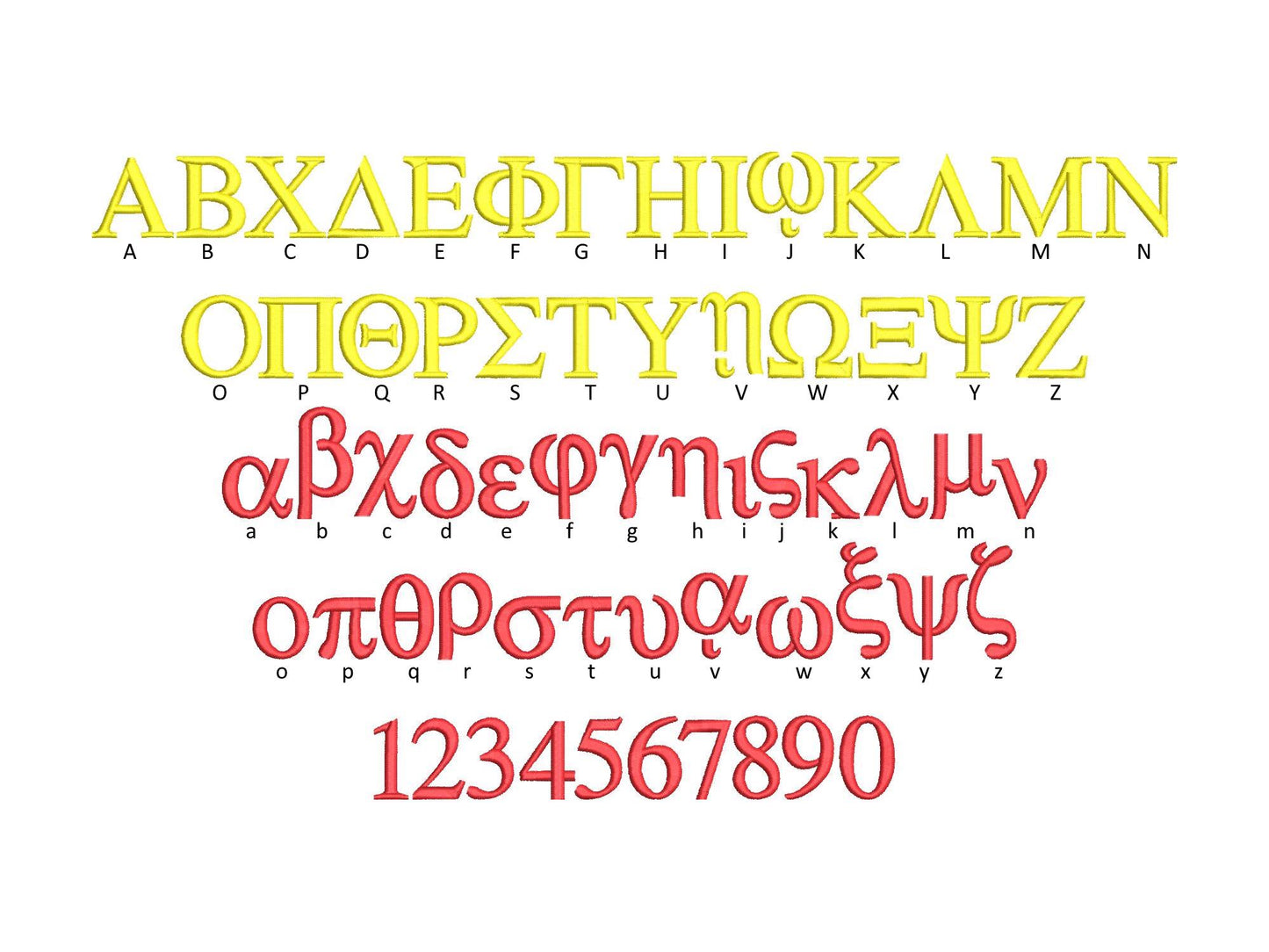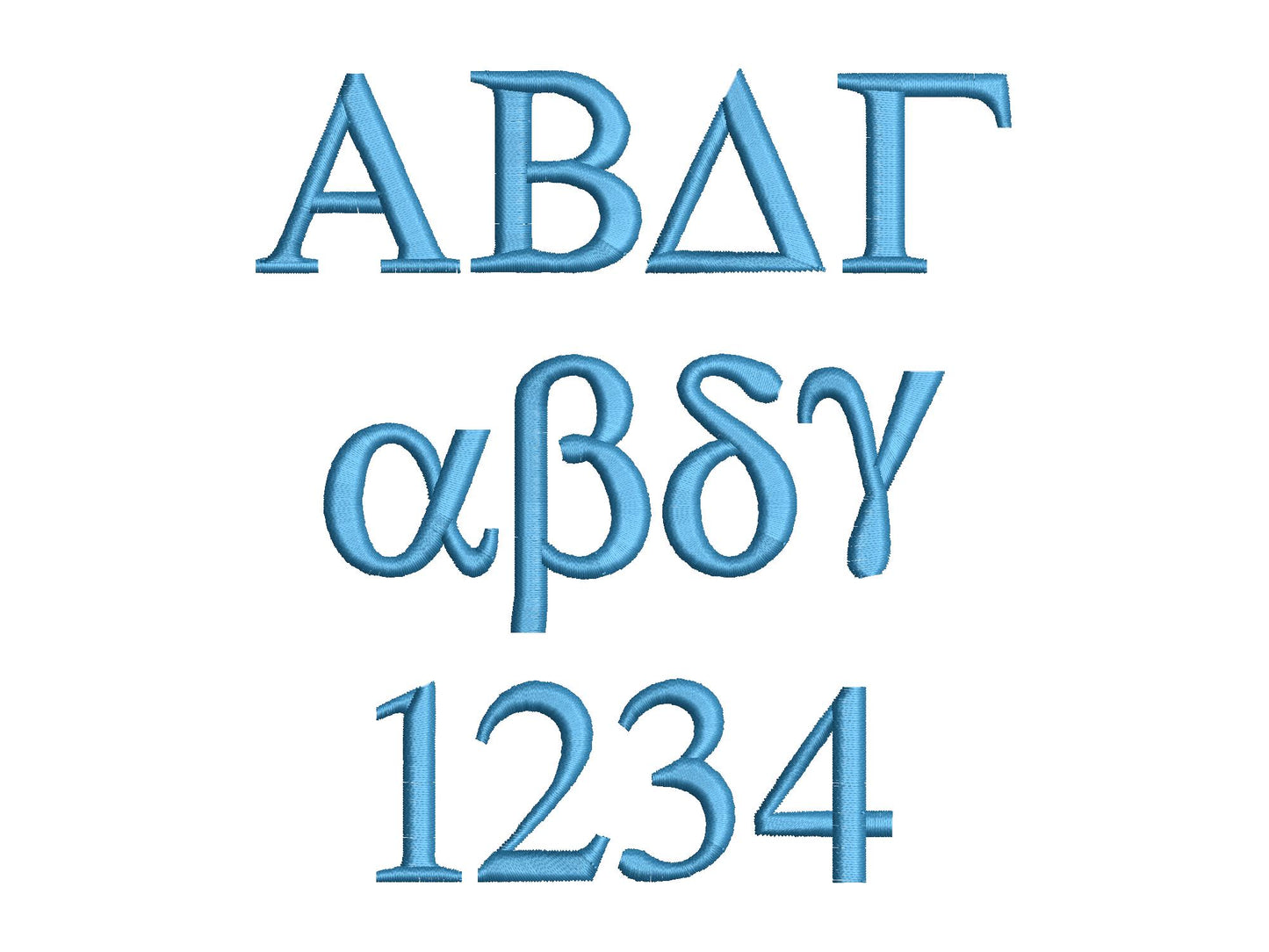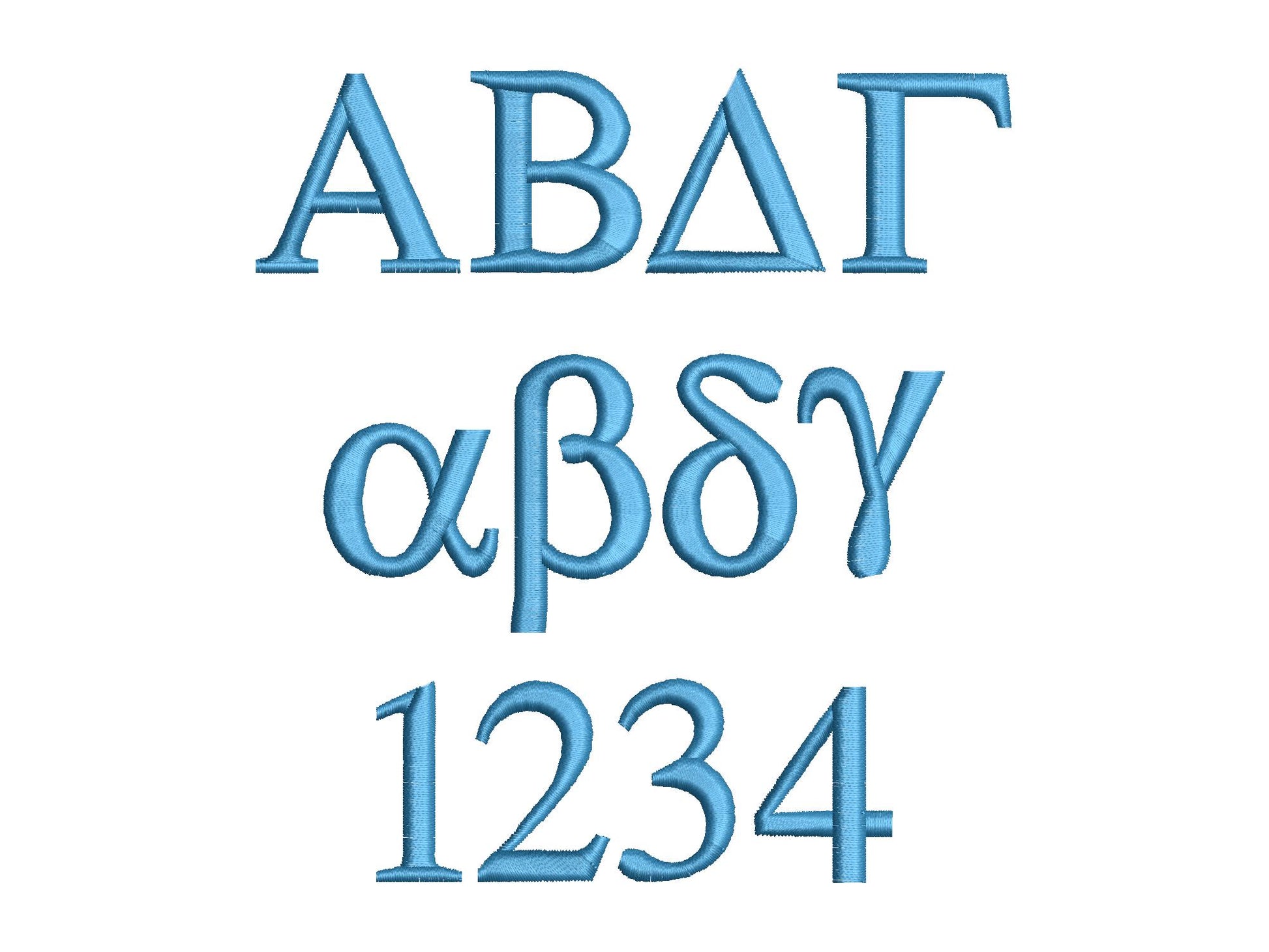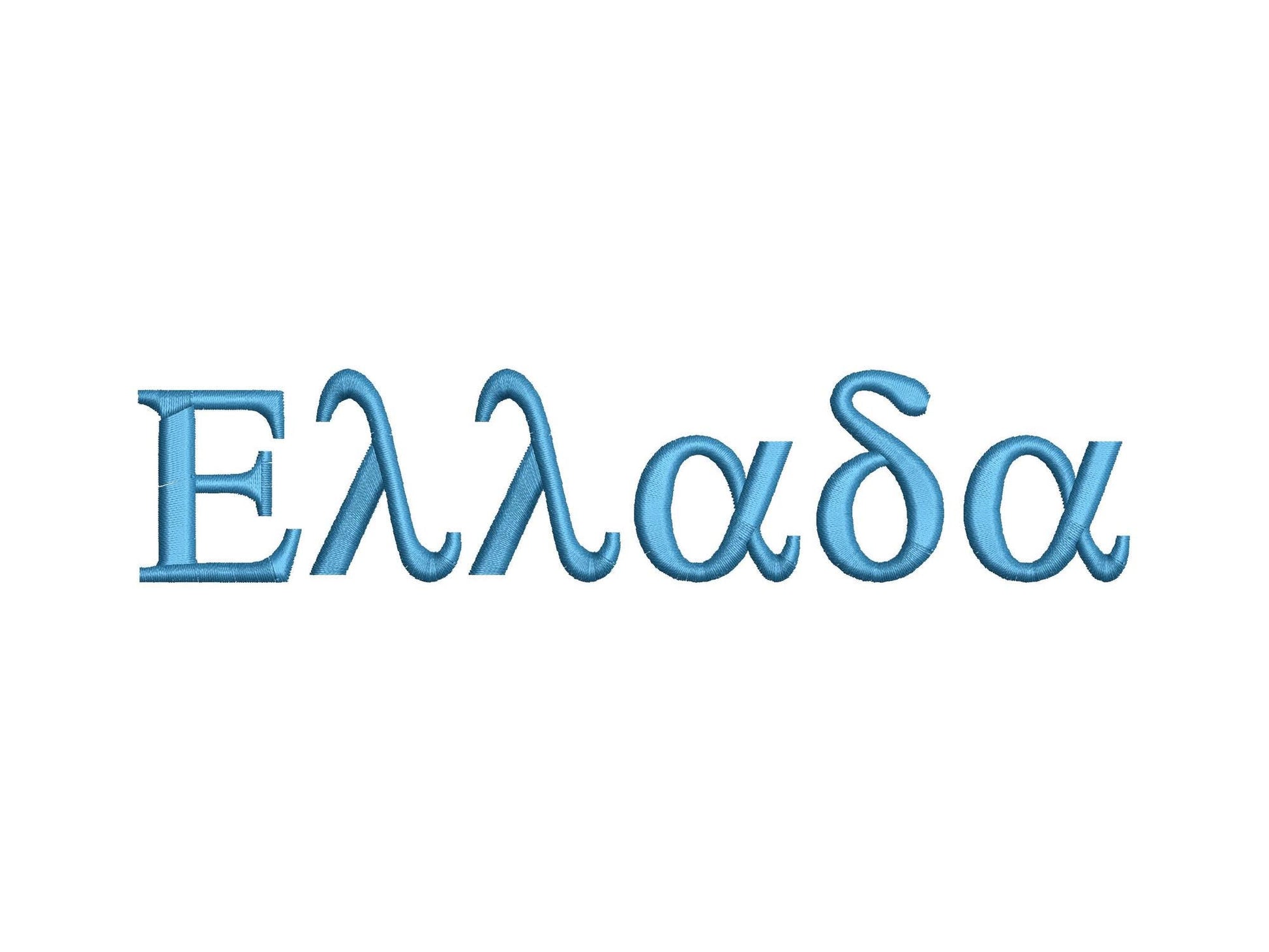
Or click to open the linkA mini satin stitch Greek alphabet for fraternities and sororities. Made for Greek letters on shirts, jackets, bags and gifts.
Greek letters, uppercase and lowercase, plus numbers 0 to 9. Seven sizes: 0.4, 0.8, 1, 1.4, 1.6, 2 and 2.4 inches. Smooth satin stitching.